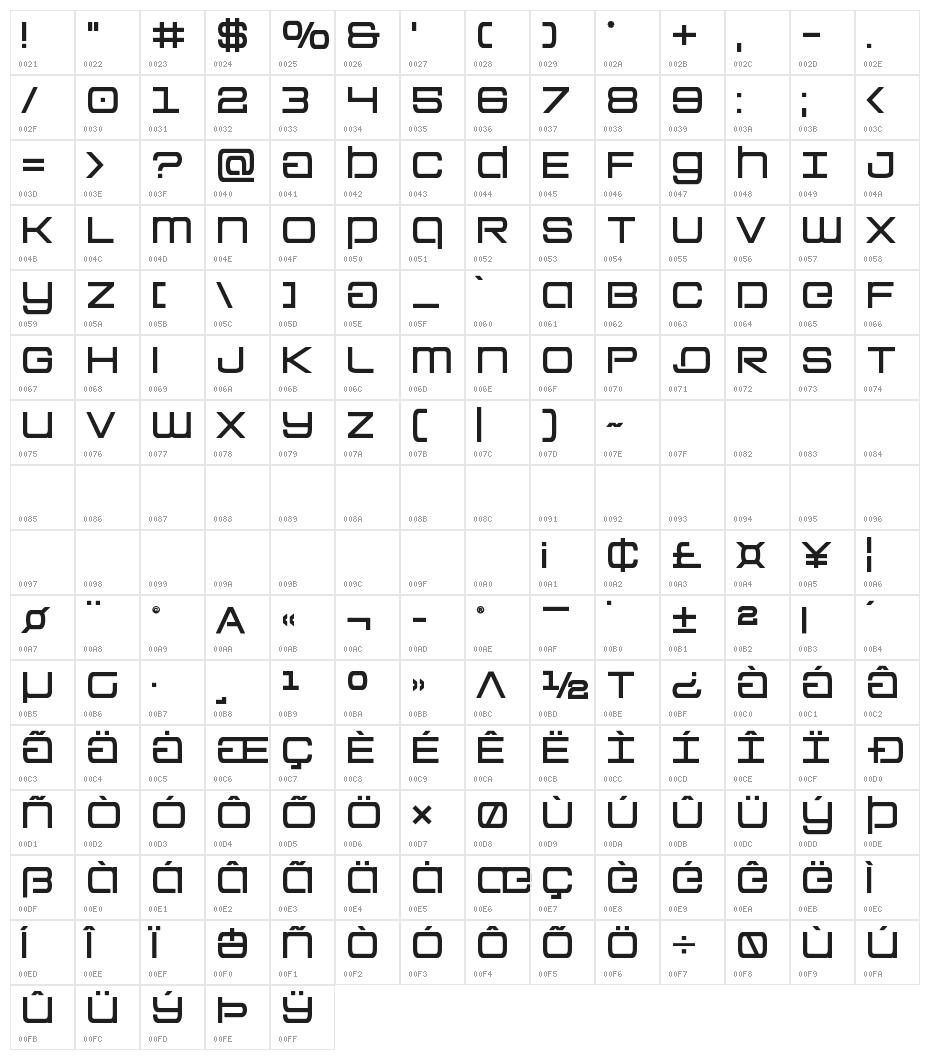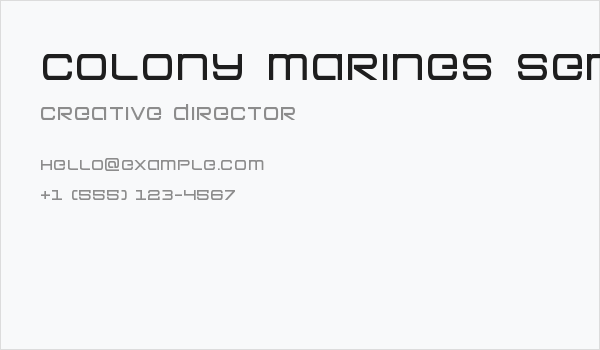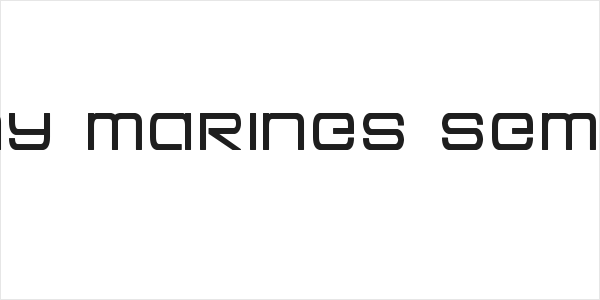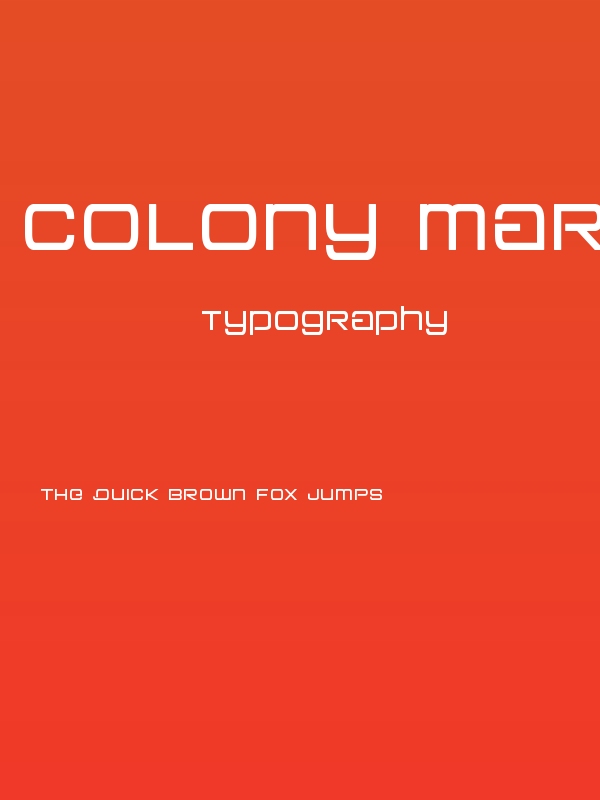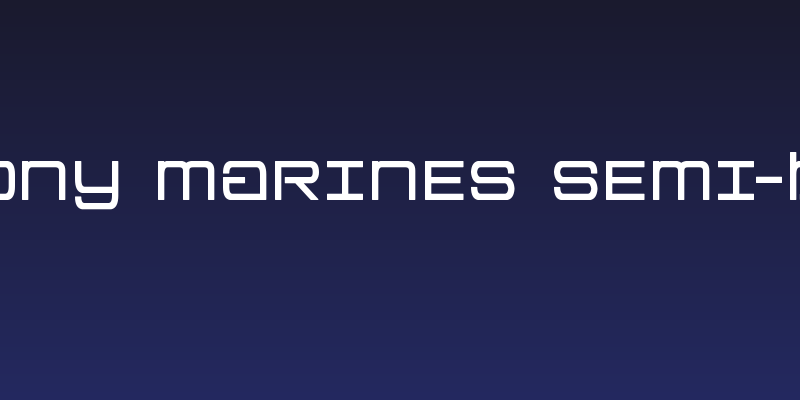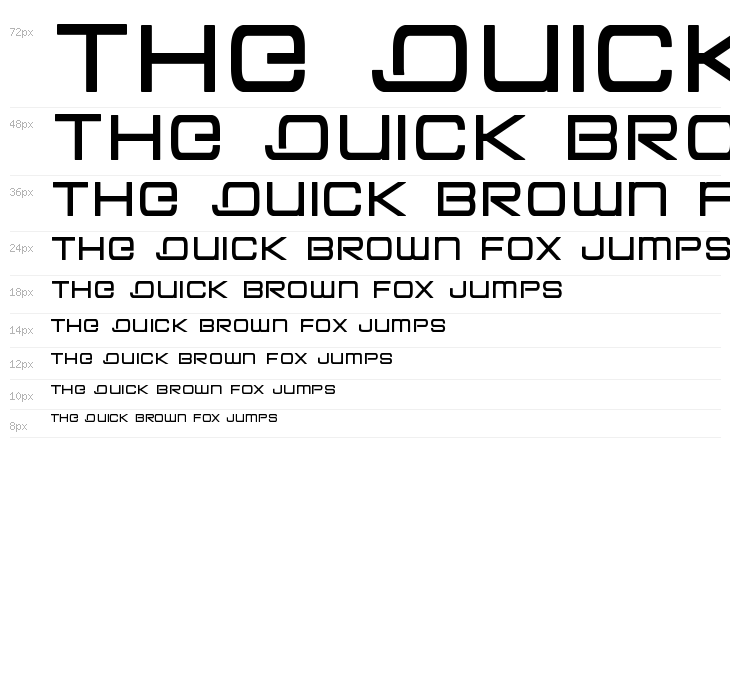
Colony Marines Semi-Bold Font
Colony Marines Semi-Bold Description
This font features a modern, geometric design with a semi-bold weight. The characters are constructed with clean, straight lines and rounded corners, giving it a futuristic and technical appearance. The uppercase and lowercase letters maintain a consistent style, with a uniform height and width that enhances readability. The numerals and special characters follow the same design principles, ensuring a cohesive look across all text elements. The font's structure is both functional and stylish, making it suitable for a variety of digital and print applications.
| Use Case | Headlines, Logos, Digital Interfaces |
| Proposed Projects | Ideal for technology branding, digital interfaces, and modern print designs. |